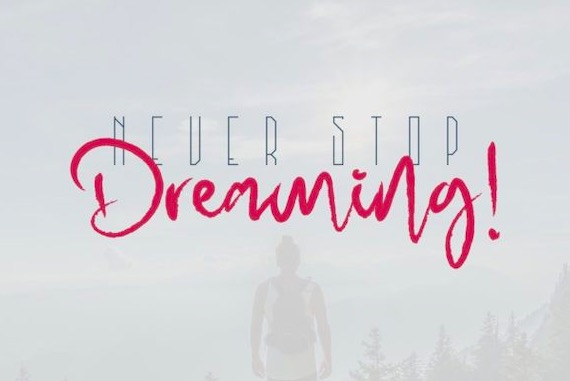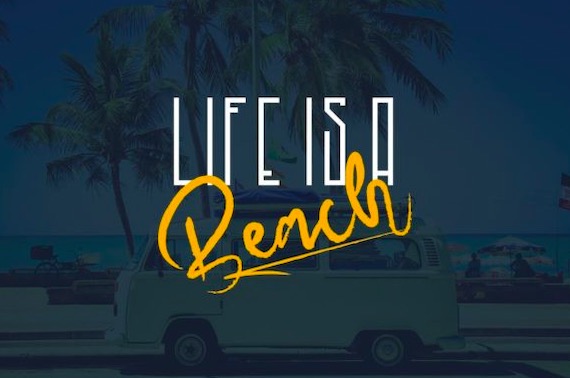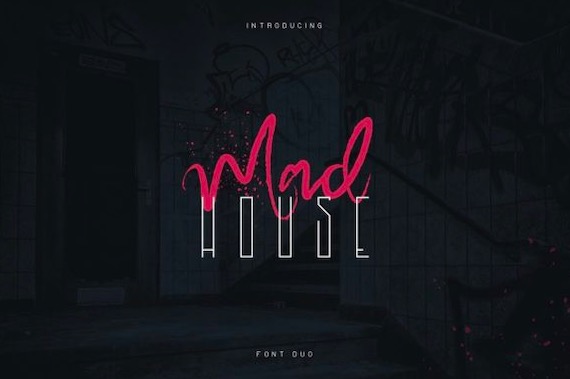
Mad House Font is an adaptable and classy cool duo font (natural brush handwritten and cool sans serif). This House Font look will appeal to a vast range of creative ideas in the future.
Mad House Display Script Font